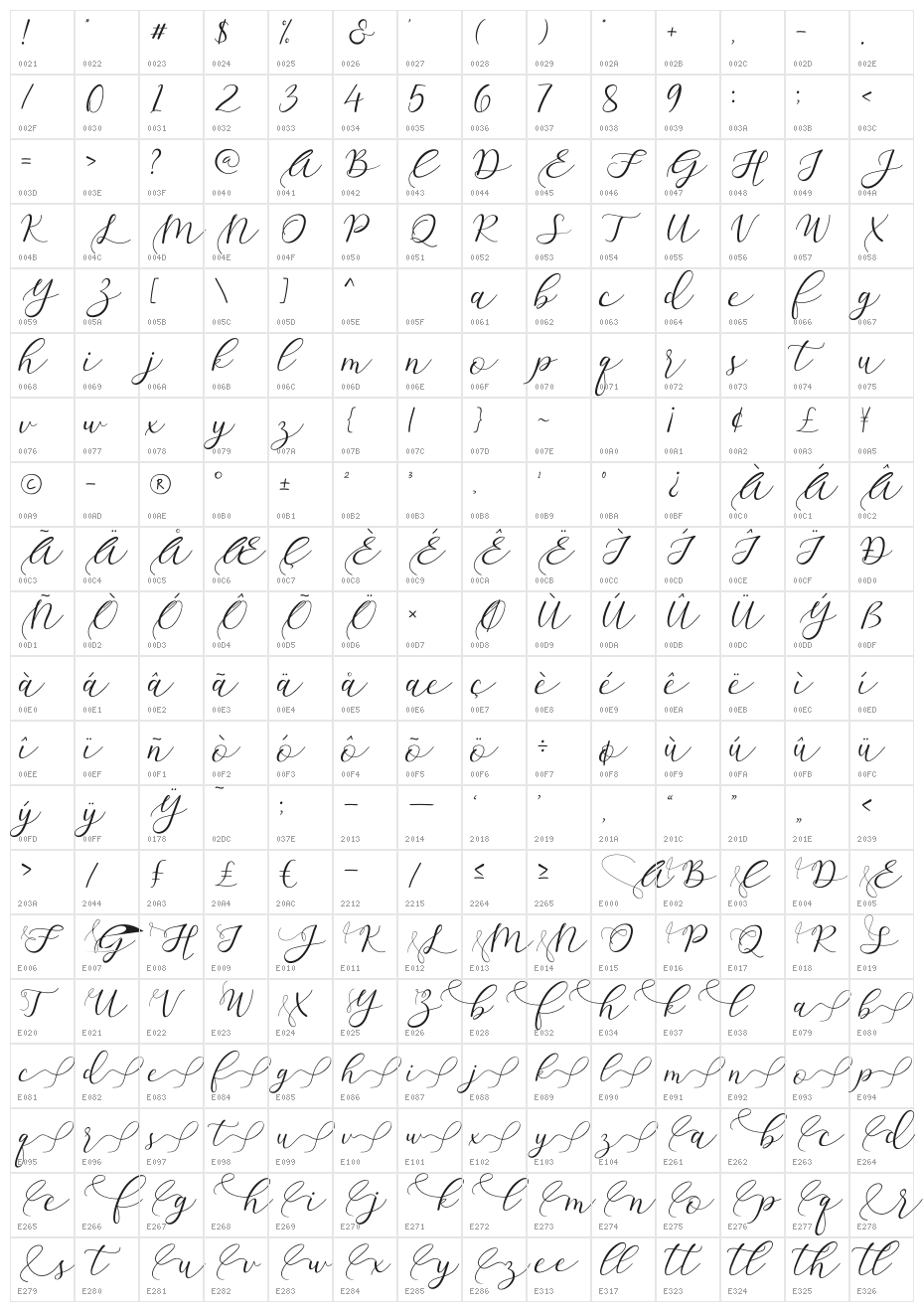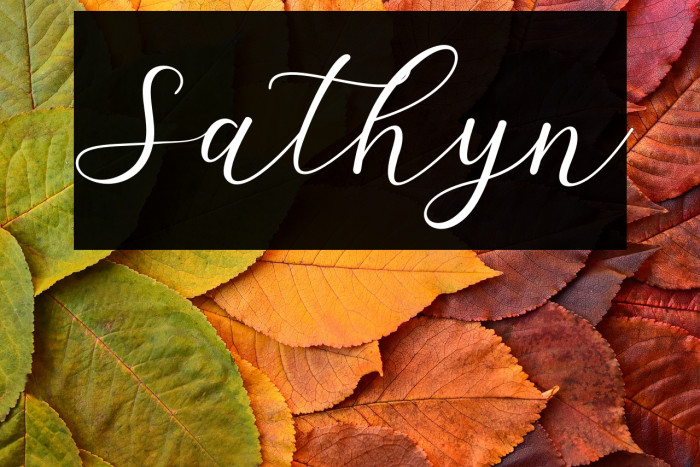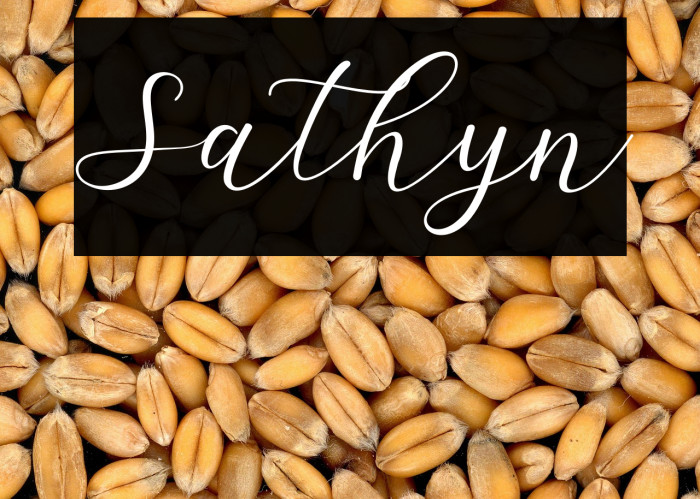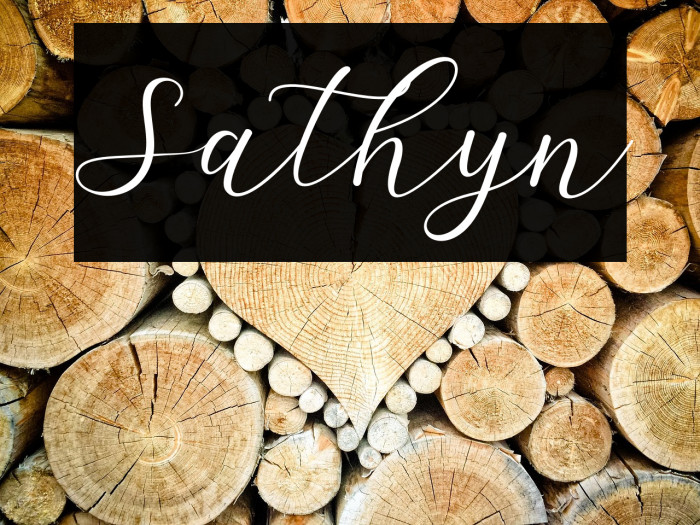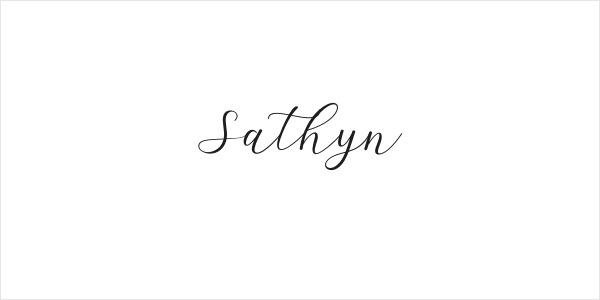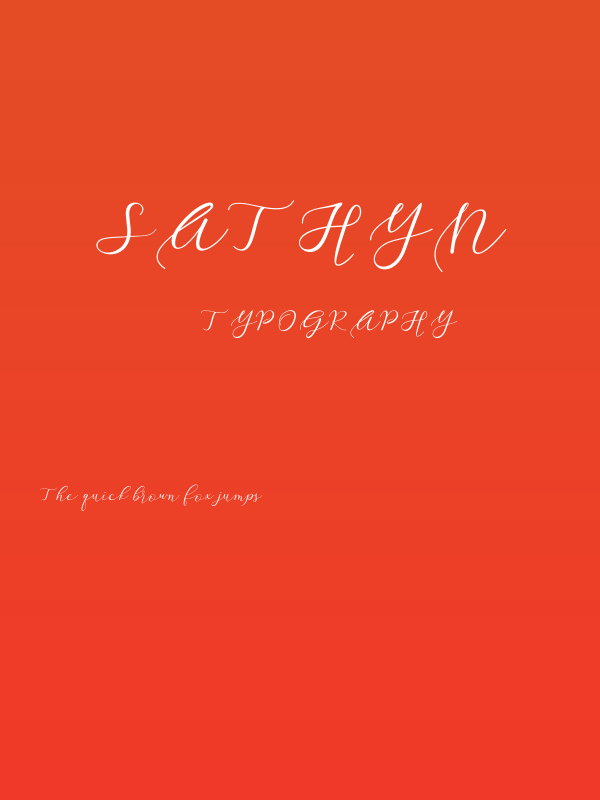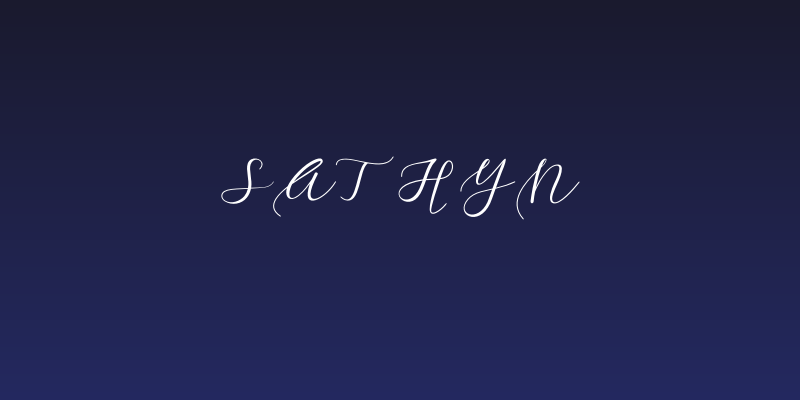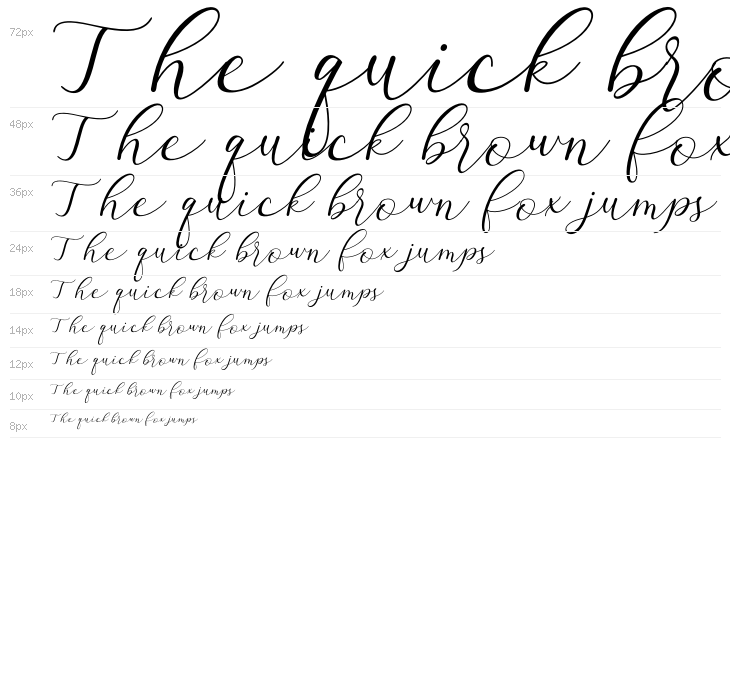
Sathyn Font
Sathyn Description
This elegant script font features a flowing, cursive style with graceful loops and swashes. The uppercase letters are slightly larger and more ornate, while the lowercase letters maintain a consistent, smooth flow. The numerals are stylishly integrated, maintaining the script's fluidity. Special characters are designed to complement the overall aesthetic, adding a touch of sophistication. The font's thin strokes and delicate curves give it a refined and artistic appearance, making it suitable for formal and decorative uses.
| Overall Style | Elegant |
| Use Case | Logos, Invitations, Decorative text |
| Proposed Projects | Ideal for wedding invitations, elegant branding, personal stationery, and decorative quotes. |